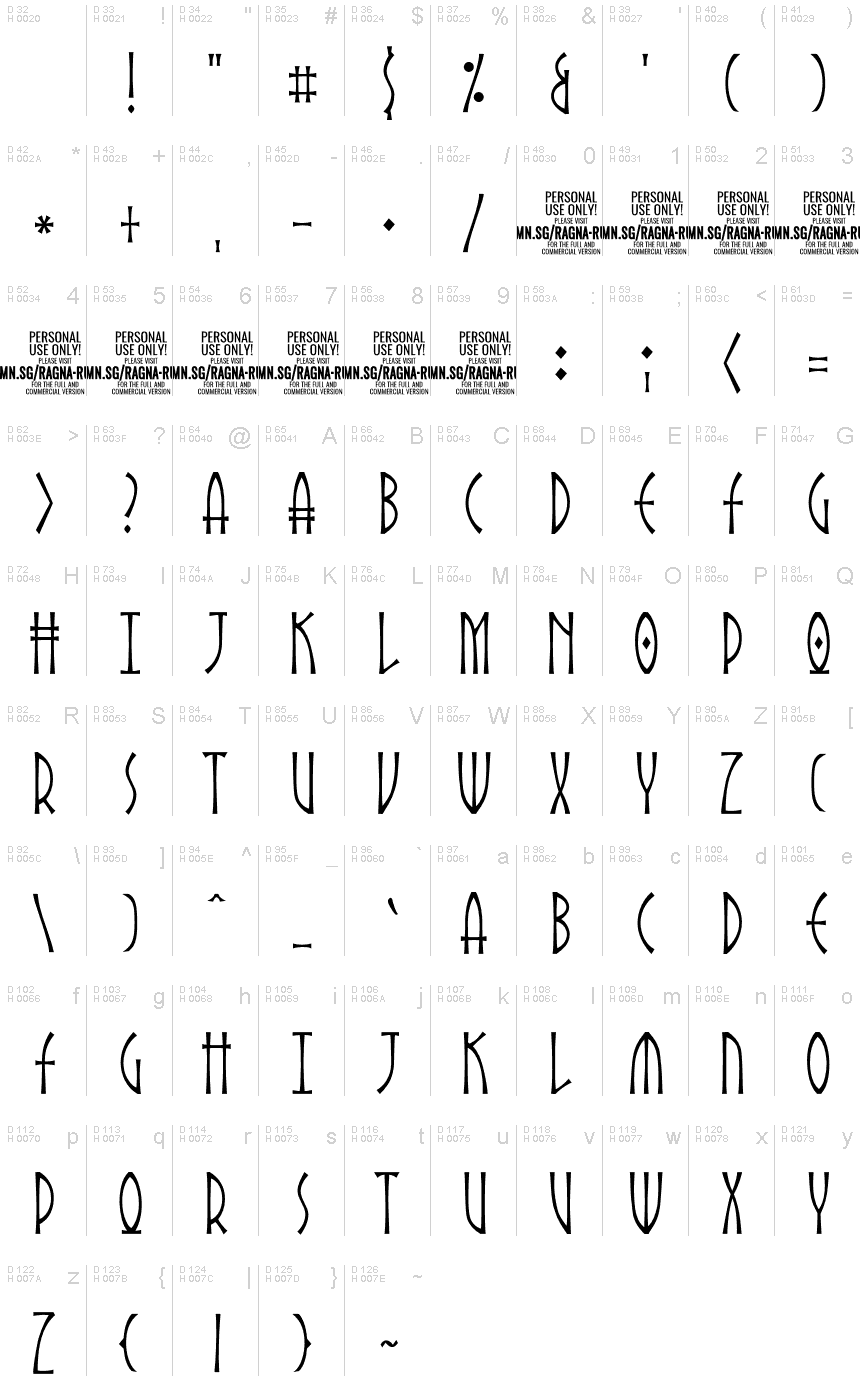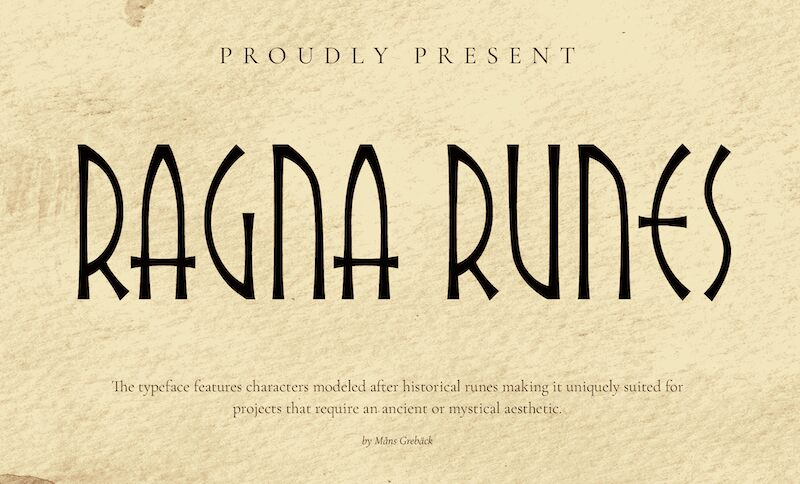
Ragna Runes, crafted by the talented Mans Greback, is a gothic masterpiece that resurrects the enchanting aura of antiquity through its light, extra-condensed form. This vintage display font is not merely a tool for creating words but a portal to an era where each character serves as a mystical relic. Designed with history in mind, Ragna Runes offers creators an unparalleled opportunity to infuse their work with the essence of ancient mystique.
Ideal for projects that call for an old-world charm or enigmatic vibe, Ragna Runes stands out with its historical rune-inspired characters and advanced OpenType features. These include stylistic sets, contextual alternates, and ligatures that grant designers exceptional control over their creative vision. The typeface boasts extensive language support and comprehensive character sets to ensure your message resonates across borders.
Experience the allure of Ragna Runes and let it transform your creative endeavors into timeless pieces of art.